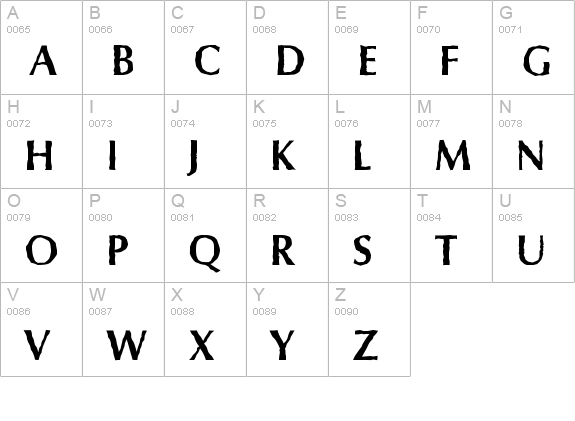
ColumbiaAntique-Bold is a strong, high-contrast variant in the ColumbiaAntique typeface family \xE2\x80\x94 well suited to headlines, attention-grabbing titles, and strong calls-to-action.
ColumbiaAntique-Bold font exudes a timeless elegance with its bold and distinctive letterforms. This classic serif typeface is perfect for adding a touch of sophistication to your designs, whether for print or digital media. Its strong, yet graceful strokes make it a versatile choice for headlines, titles, and branding materials. What's more, ColumbiaAntique-Bold font is available for free download at FontsMarket.com. This means you can easily access this premium quality font without any cost, making it a valuable addition to your font collection. Don't miss out on the opportunity to enhance your projects with the beauty and charm of ColumbiaAntique-Bold font. Download it today and elevate your designs to the next level.